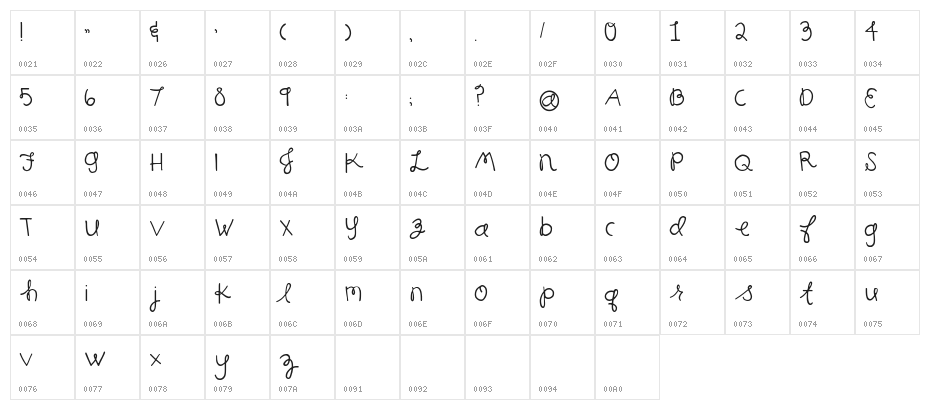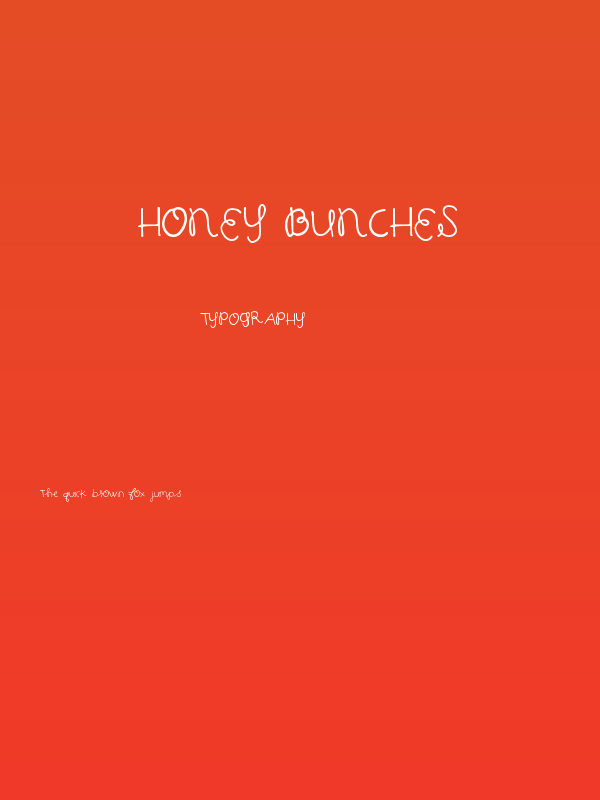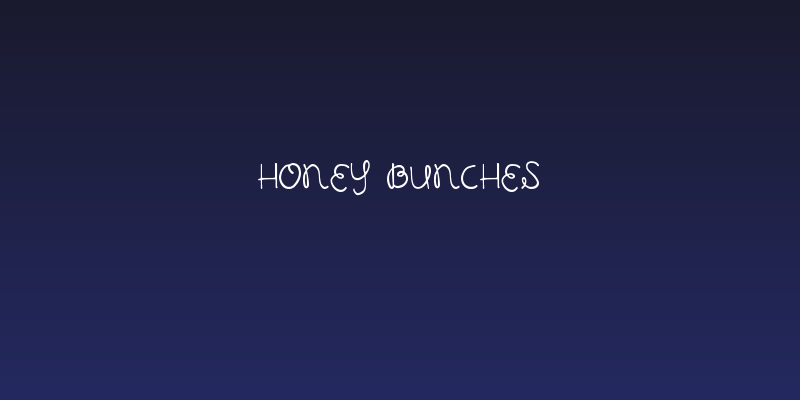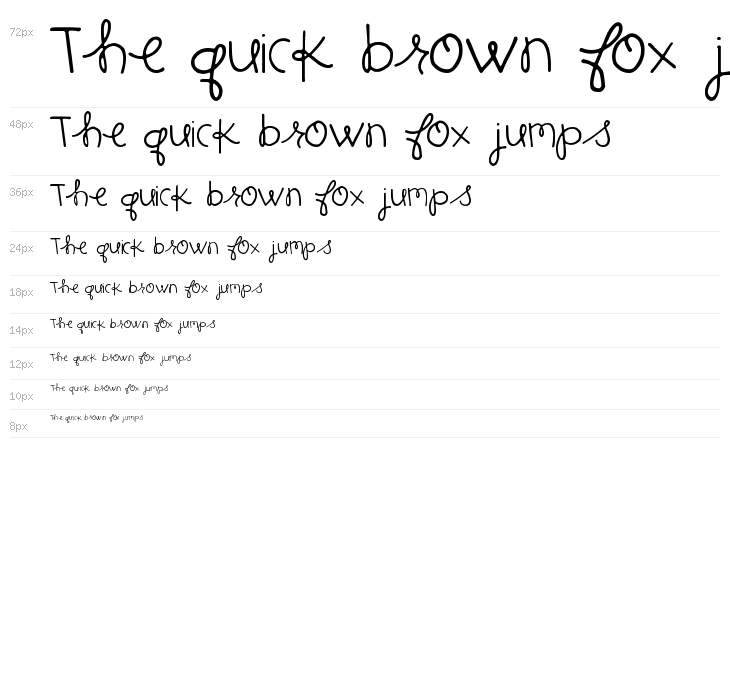
Honey Bunches Font
Honey Bunches Description
This font features a playful and whimsical handwritten style, characterized by its looping and flowing letterforms. The uppercase letters are distinct with a charming irregularity, while the lowercase letters maintain a consistent, fluid motion, enhancing its casual and friendly appearance. The numerals are rounded and maintain the playful aesthetic, making them easily readable. Special characters are creatively integrated, adding to the font's unique personality. The overall design is informal yet stylish, suitable for projects that require a touch of personality and warmth.
Overall StyleCasual, Playful
Use CaseHeadlines, Logos, Invitations
Proposed ProjectsIdeal for greeting cards, children's books, playful branding, and social media graphics.